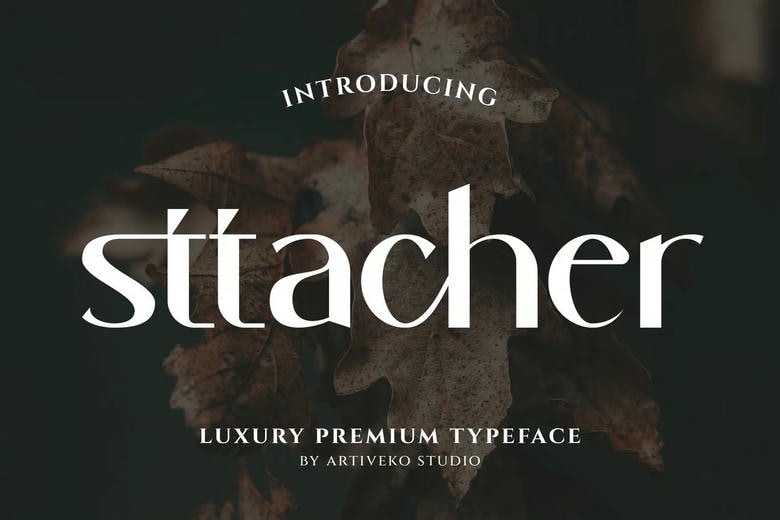
Sttacher Font
Sttacher is a high quality sans serif font that is designed by Artiveko and is available for free download and personal use. The free version provides all uppercase and lowercase letters and a few special characters too.
This font is perfect for branding projects, Logo design, Clothing Branding, product packaging, magazine headers, or simply as a stylish text overlay to any background image.
Sttacher Sans Serif Font